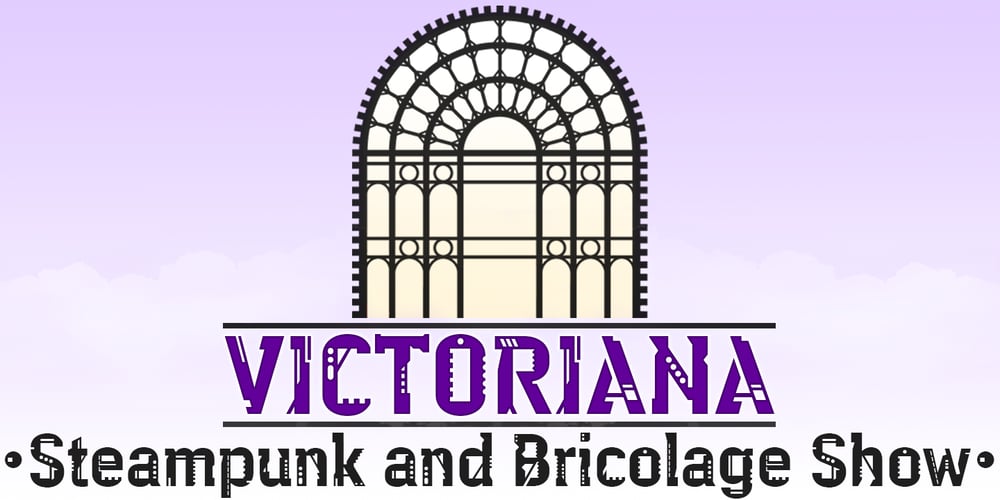
Argot Machine Font Family was designed by Keith Bates and published by K-Type. Argot Machine contains 2 styles and family package options. Argot Machine is a display face based on K-Type’s Argot Bold but with pop art style modifications inspired by the shapes of machinery and construction, such as punched, die-cut, pressed, and moulded forms.